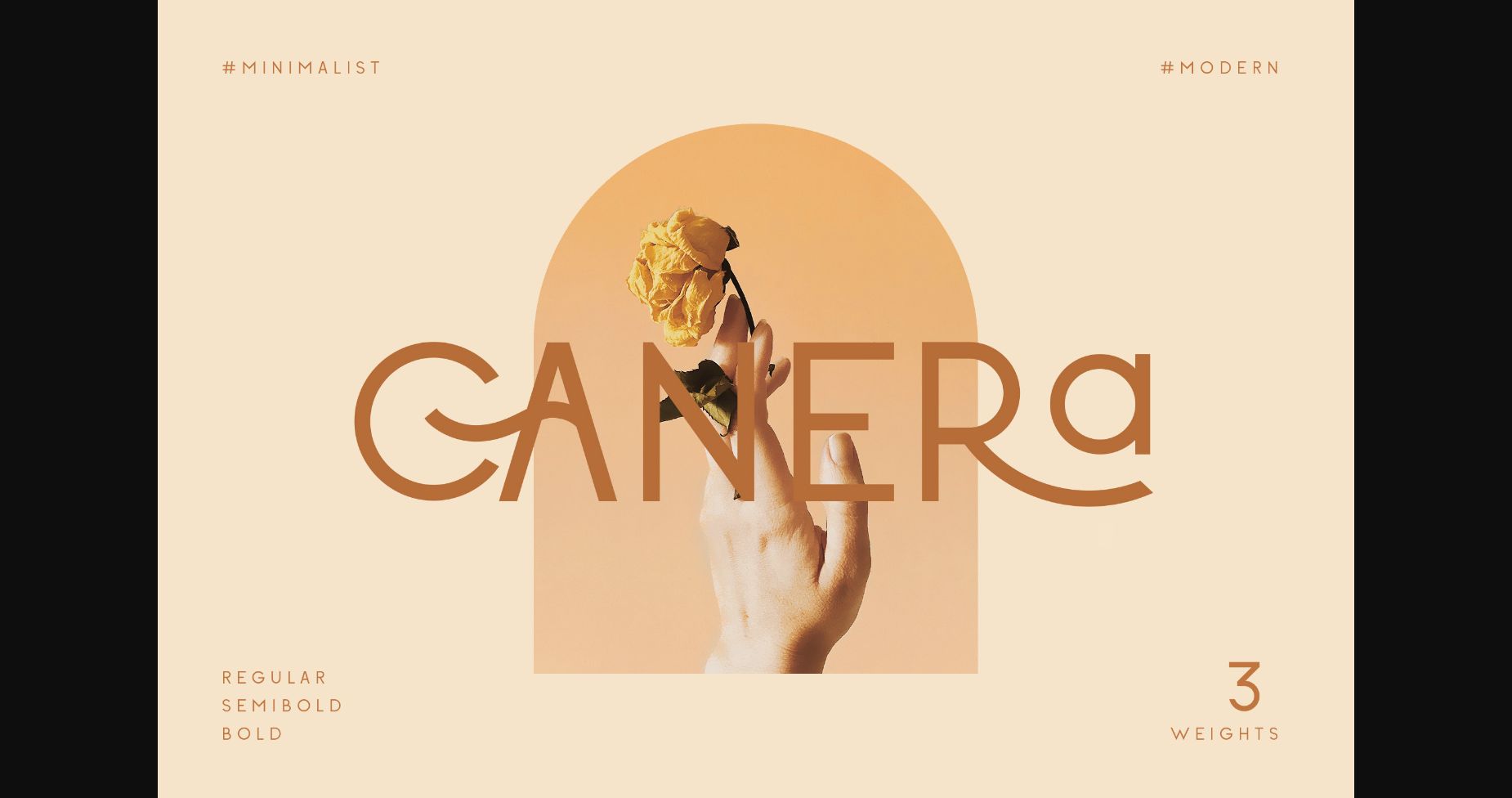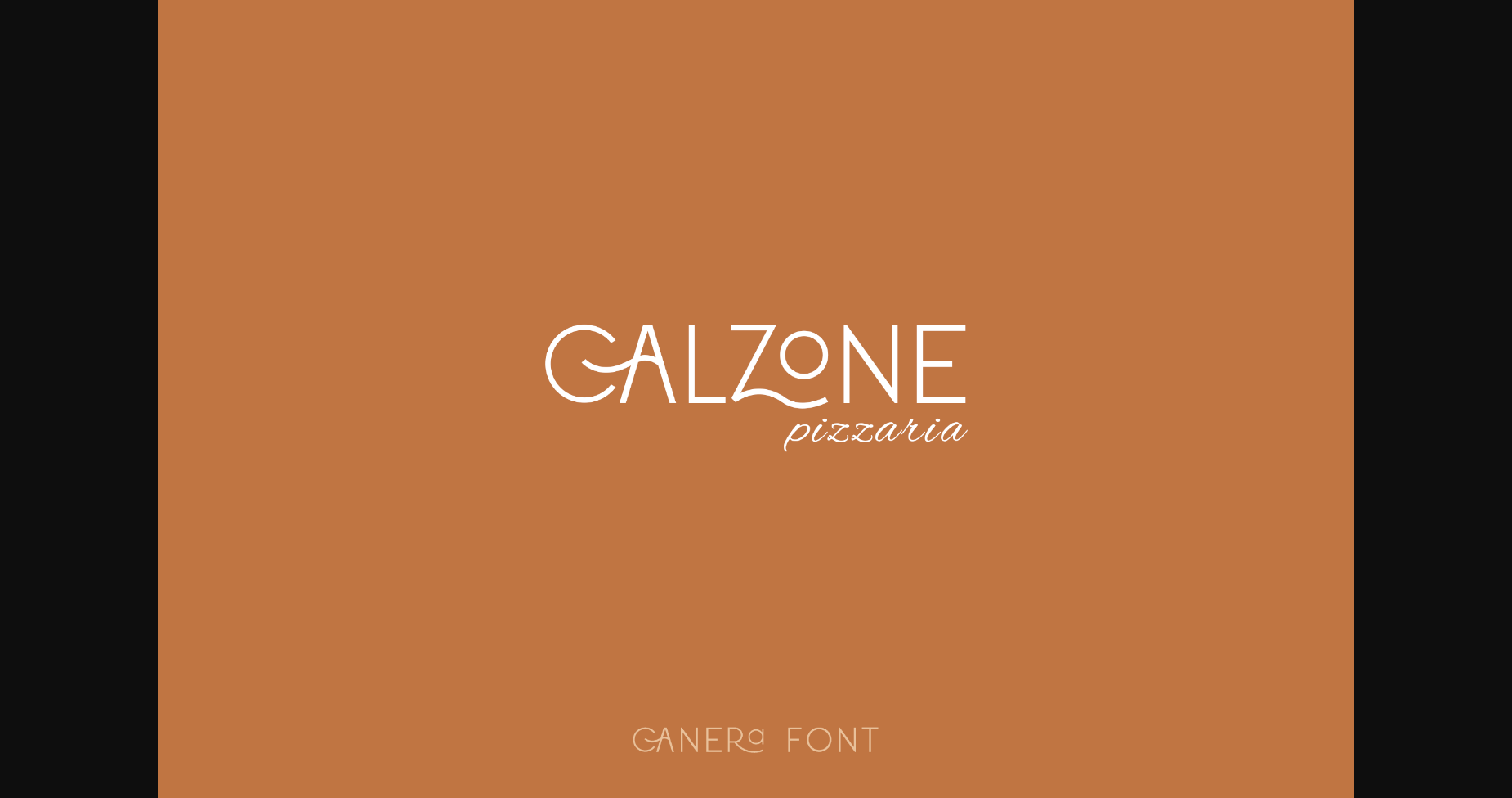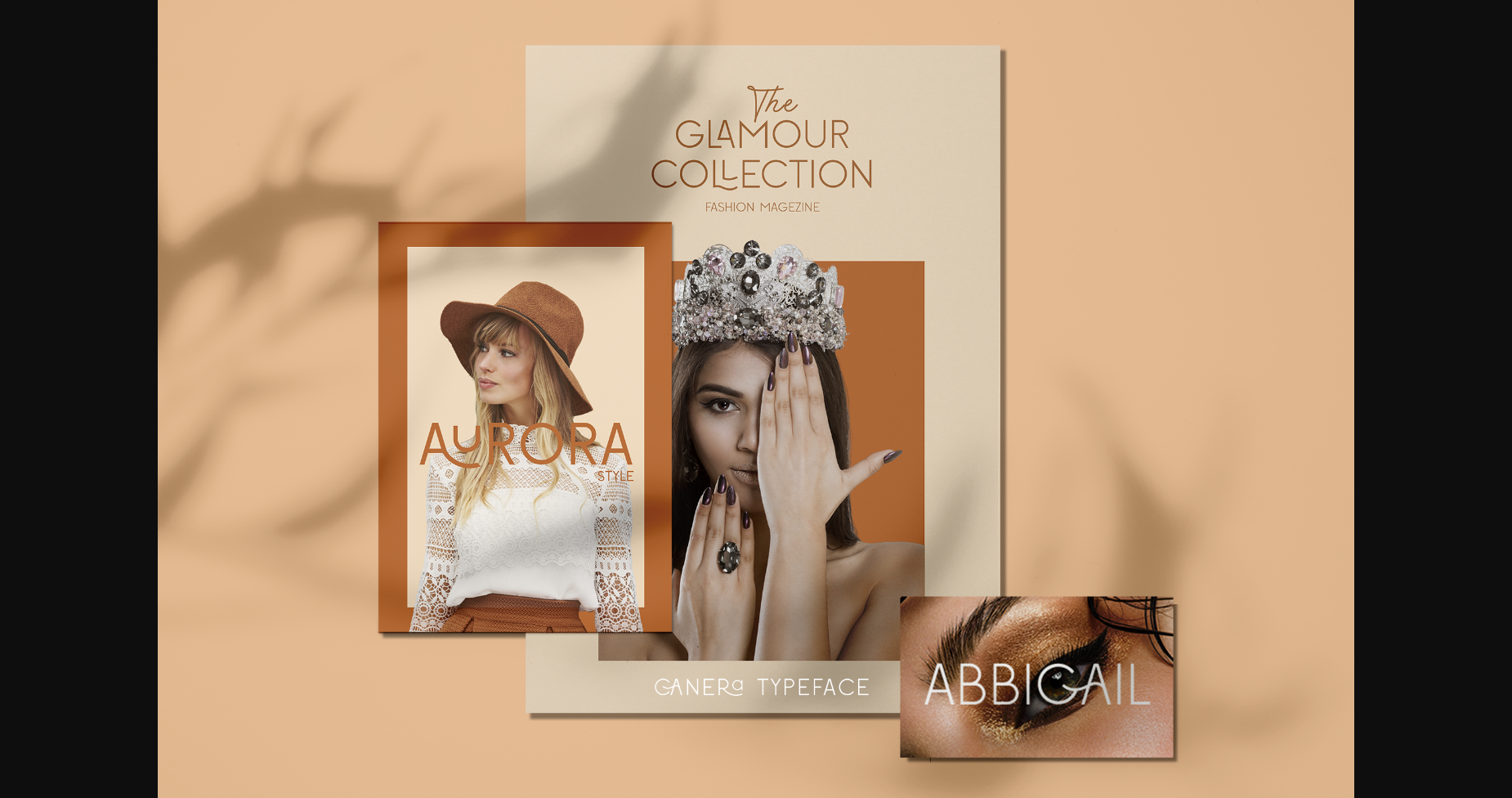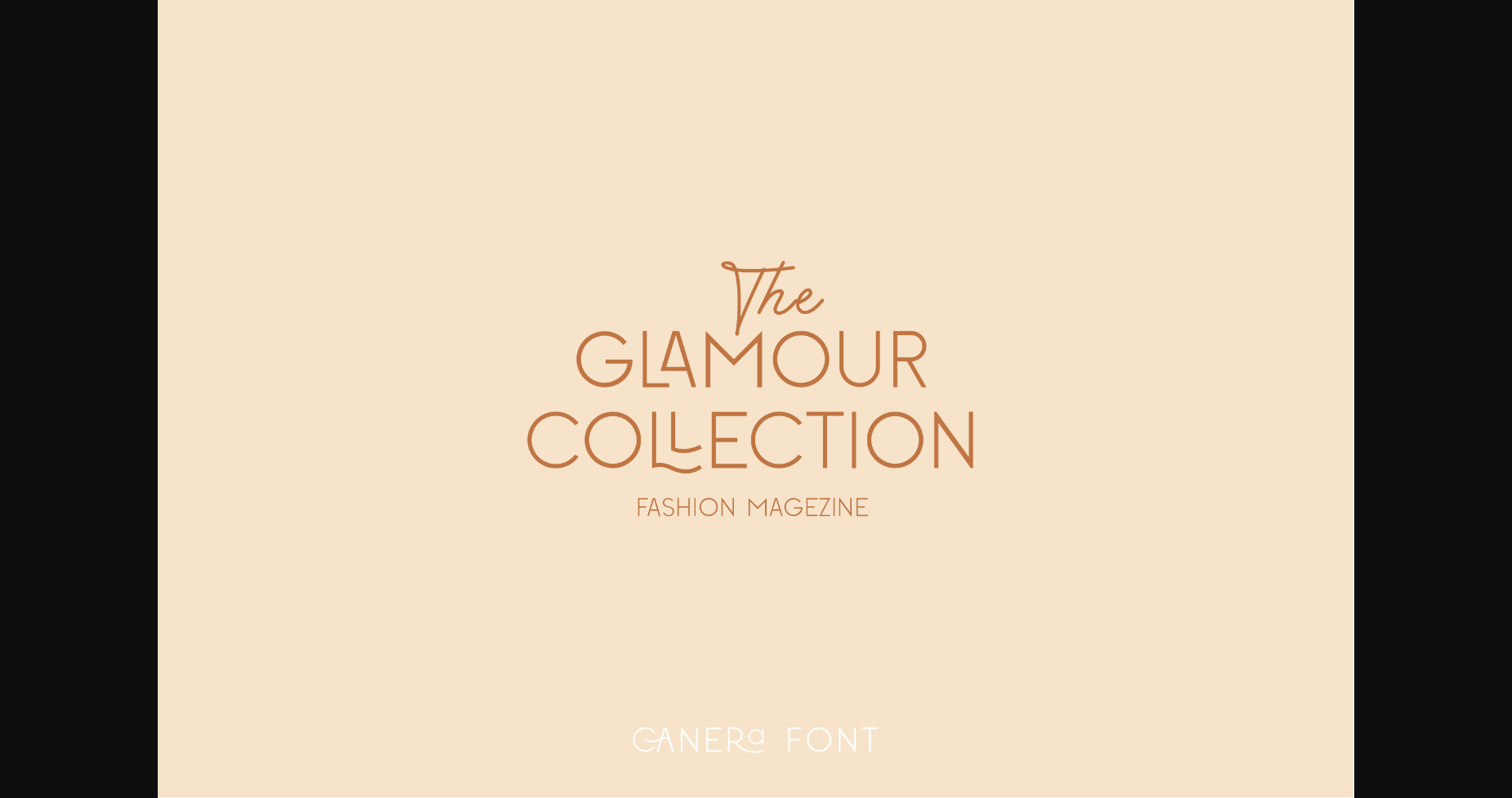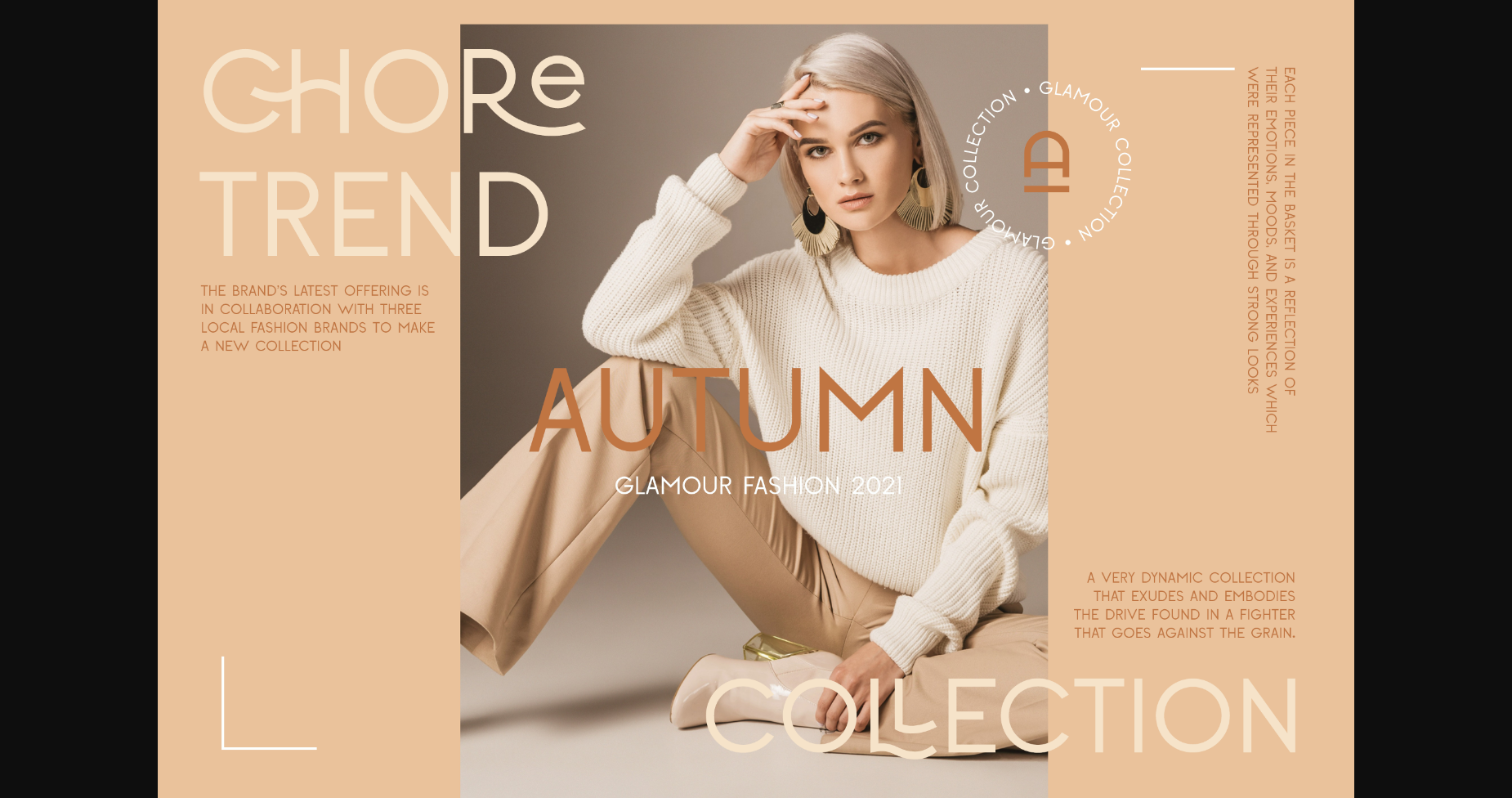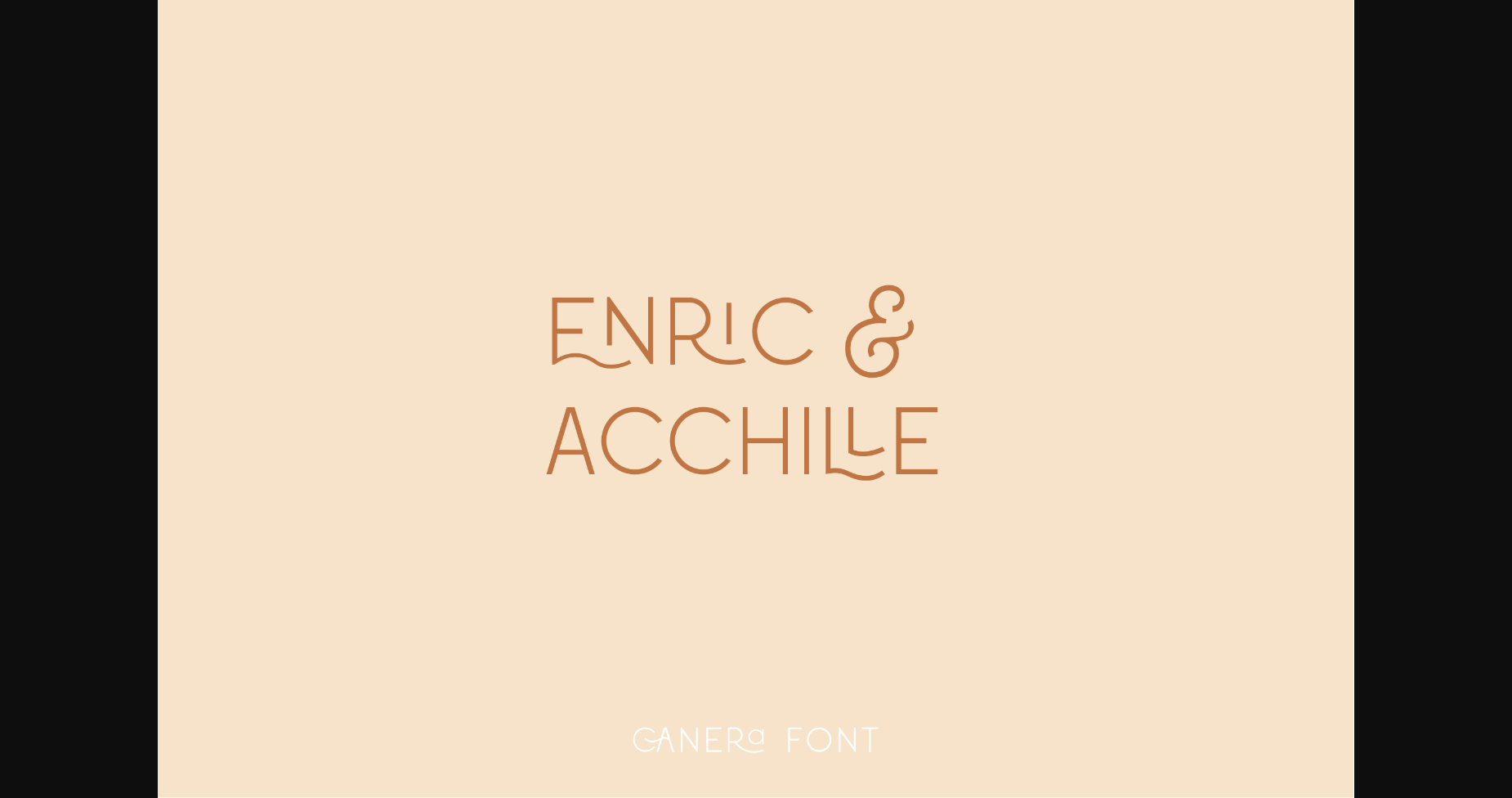
About Canera Font
Canera is a stylish and delicate sans serif font. It has a clean, thin and smooth vibe and it will be a hit for any design that you want to add it to. Canera is PUA encoded which means you can access all of the glyphs and swashes with ease!